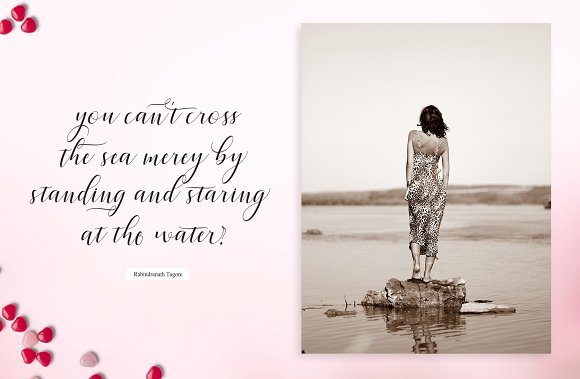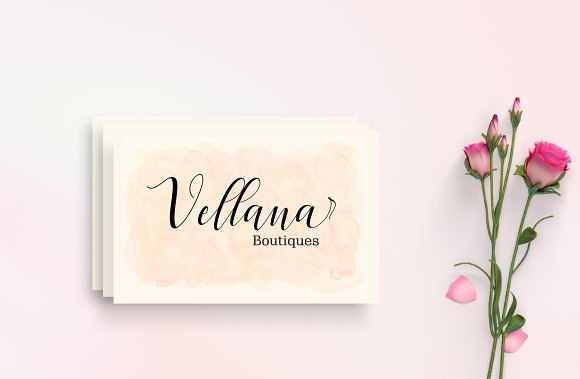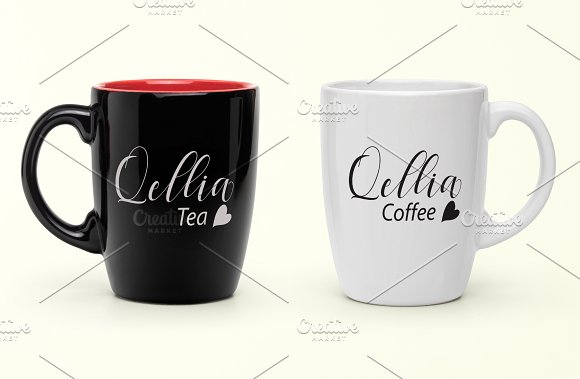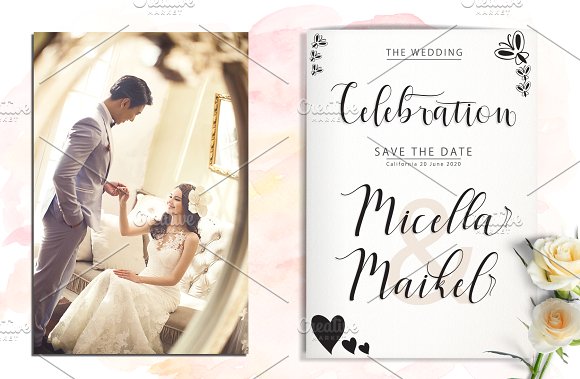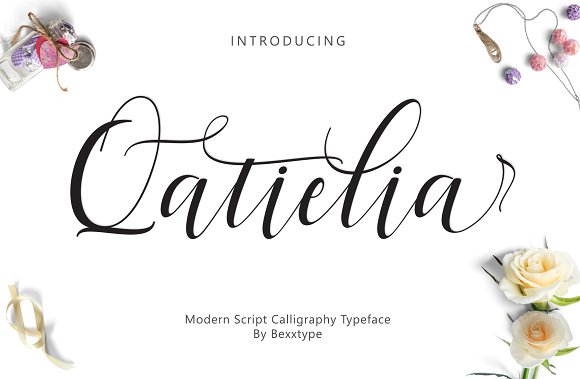
Qatielia Script Font
If you want to create elegant stationery, gorgeous social media designs or invitations, or want to create amazing brands – this font instantly provides everything you need in one pack. A modern script calligraphy typeface. Introducing Qatielia Font. It is was designed by Bexxtype. Qatielia Script is modern script font, every single letters have been carefully crafted to make your text looks beautiful. You can use it as a type of logo, badge, packaging, title, poster, t-shirt / clothes, greeting cards, wedding invitations and more.